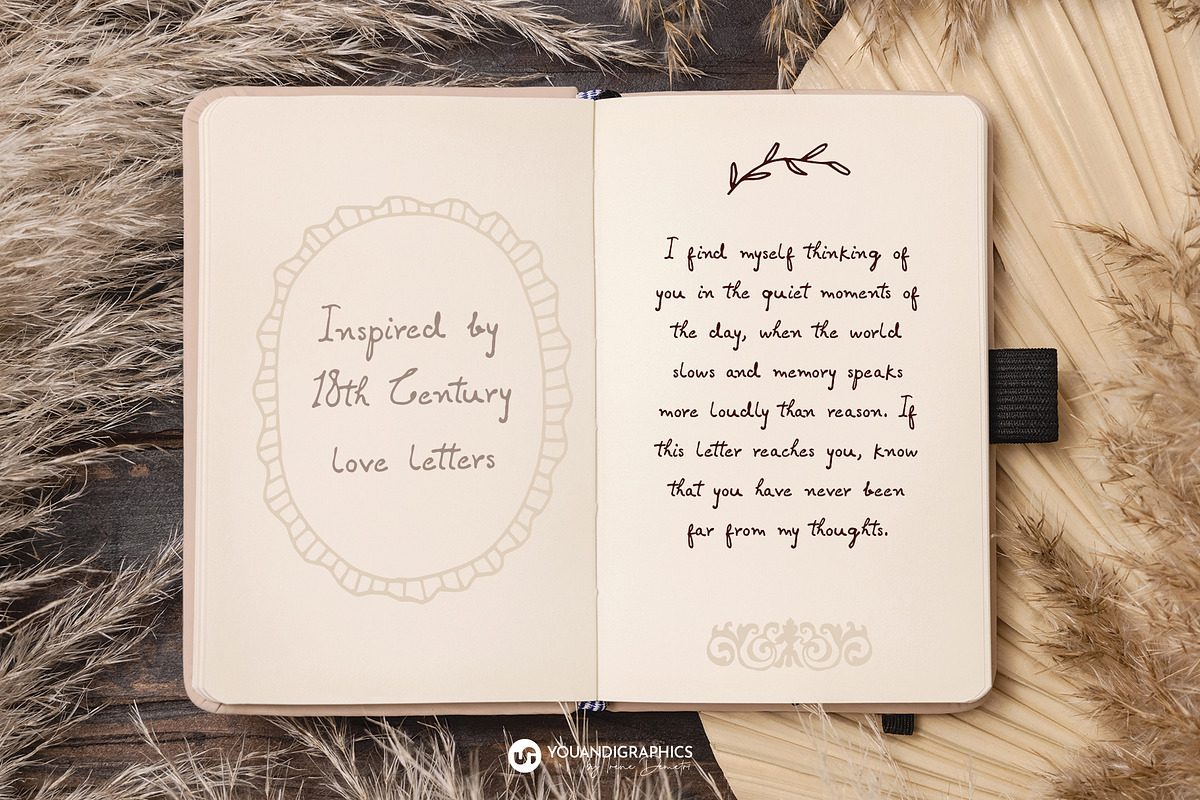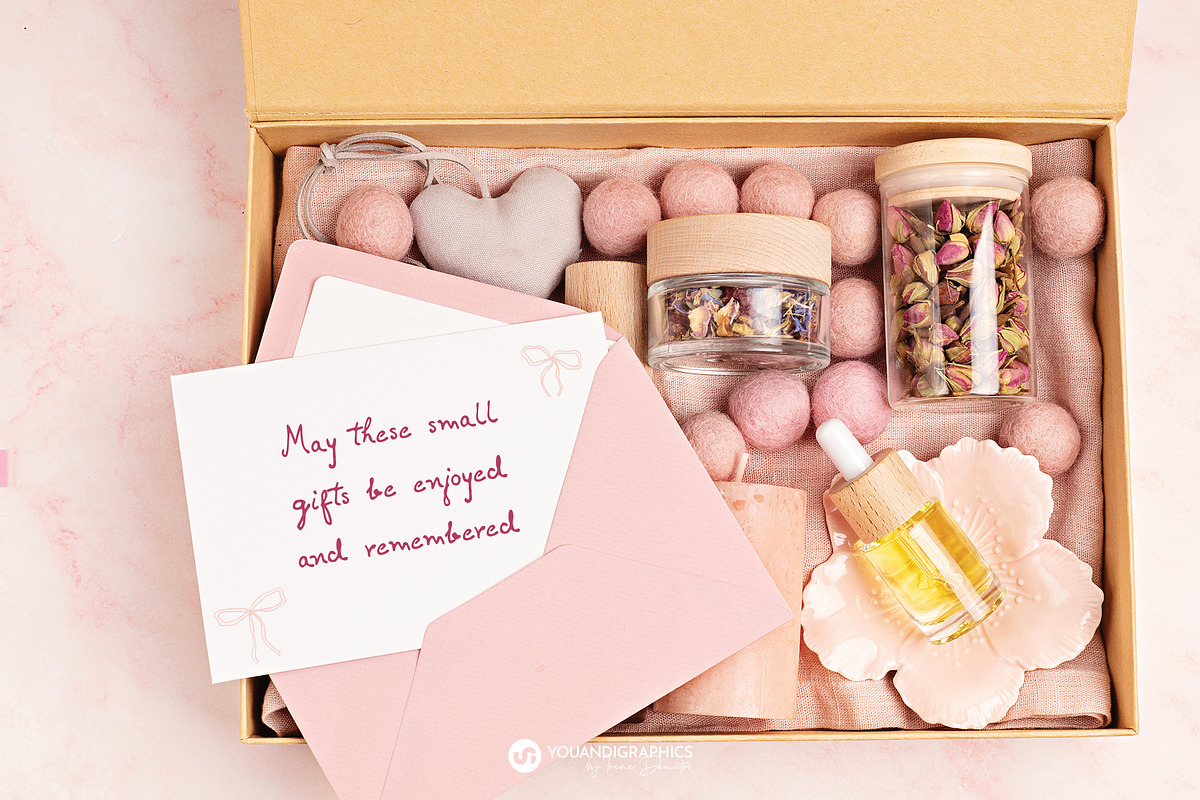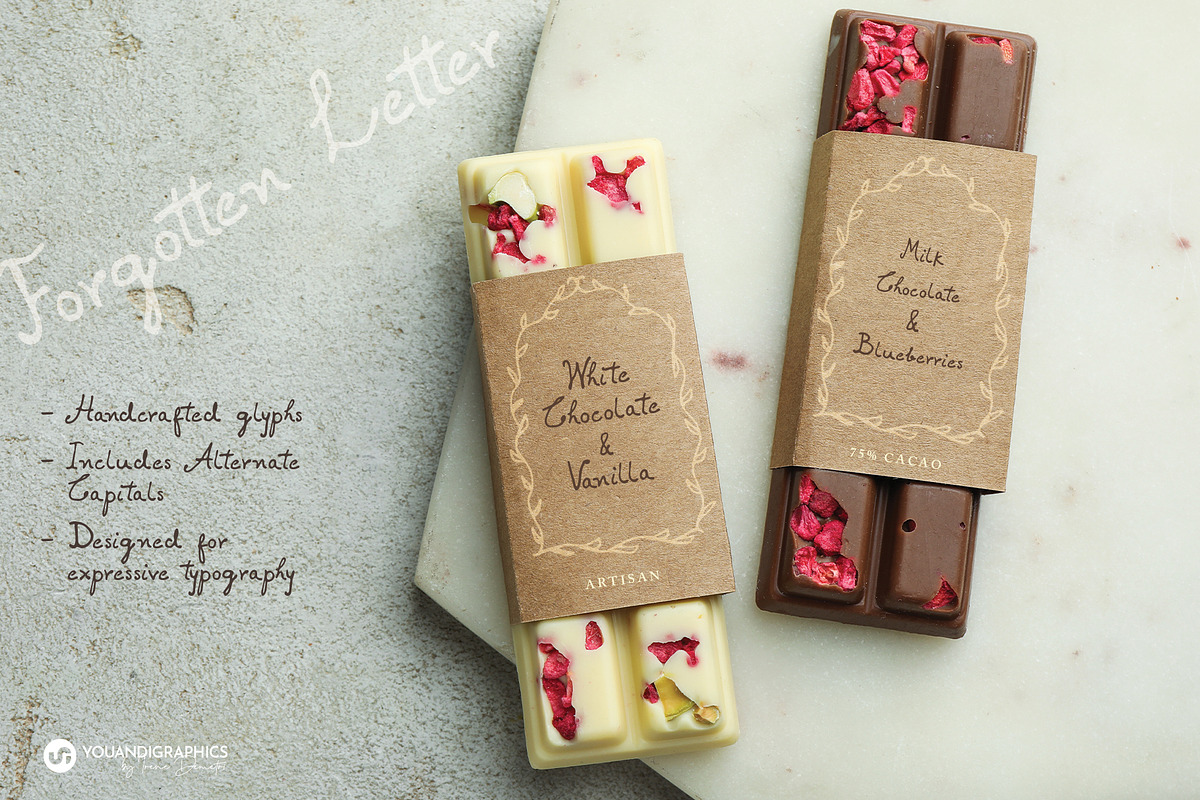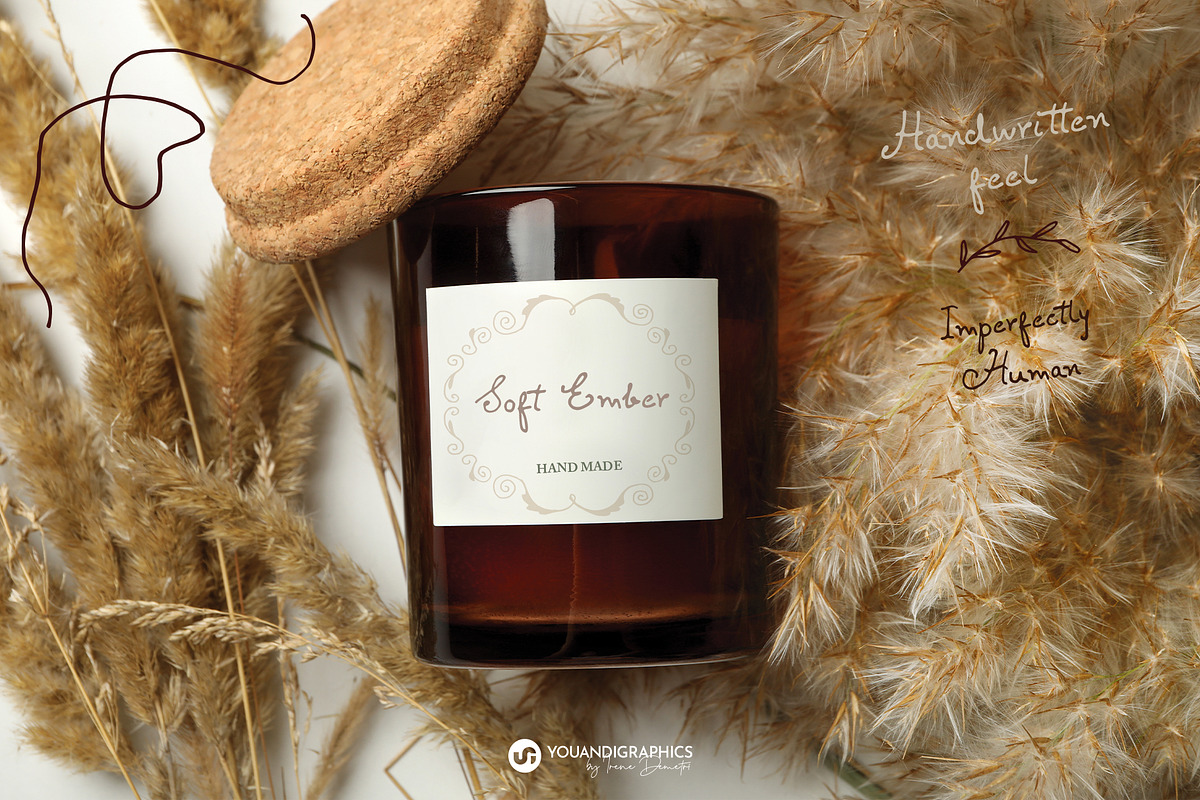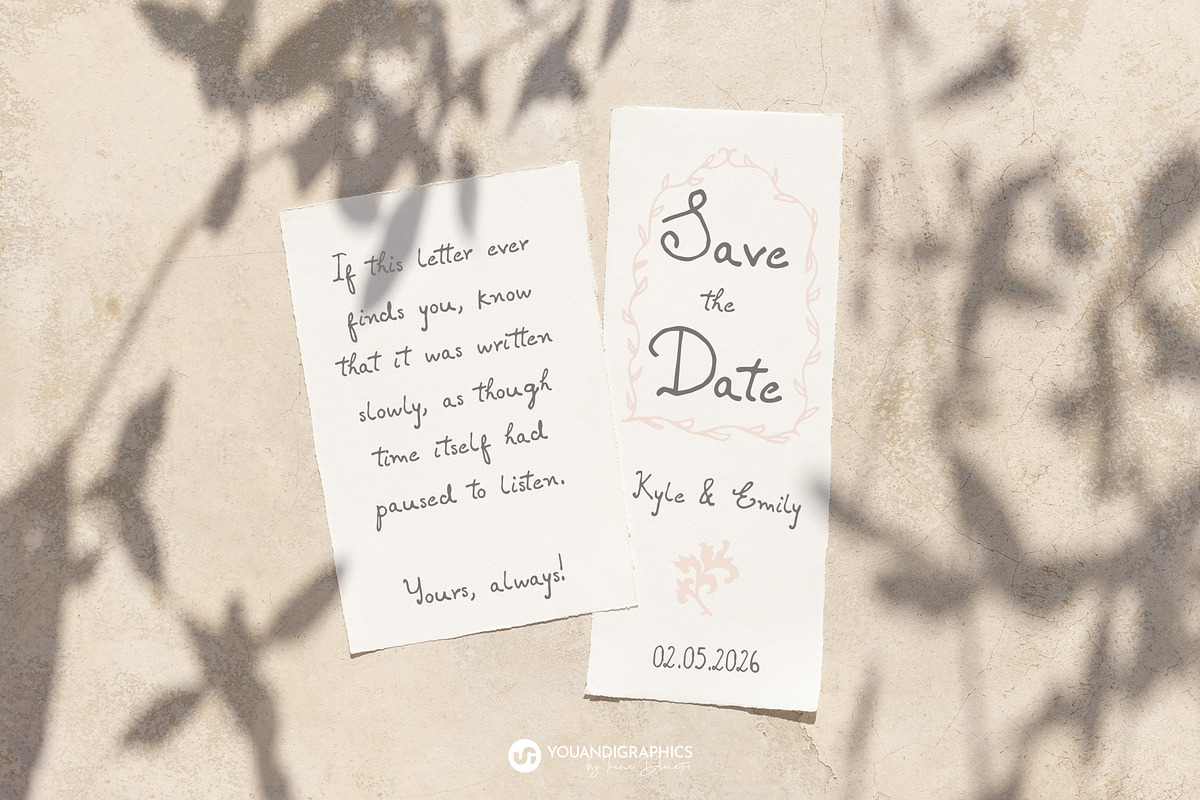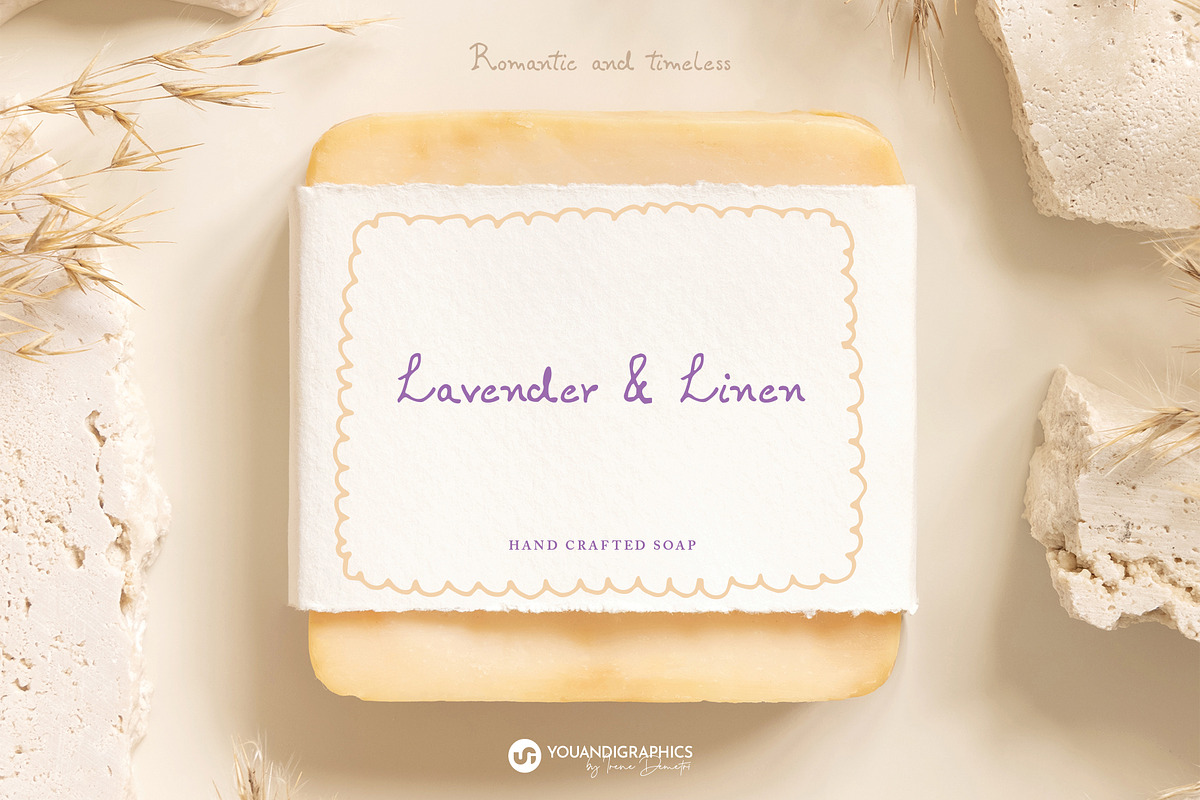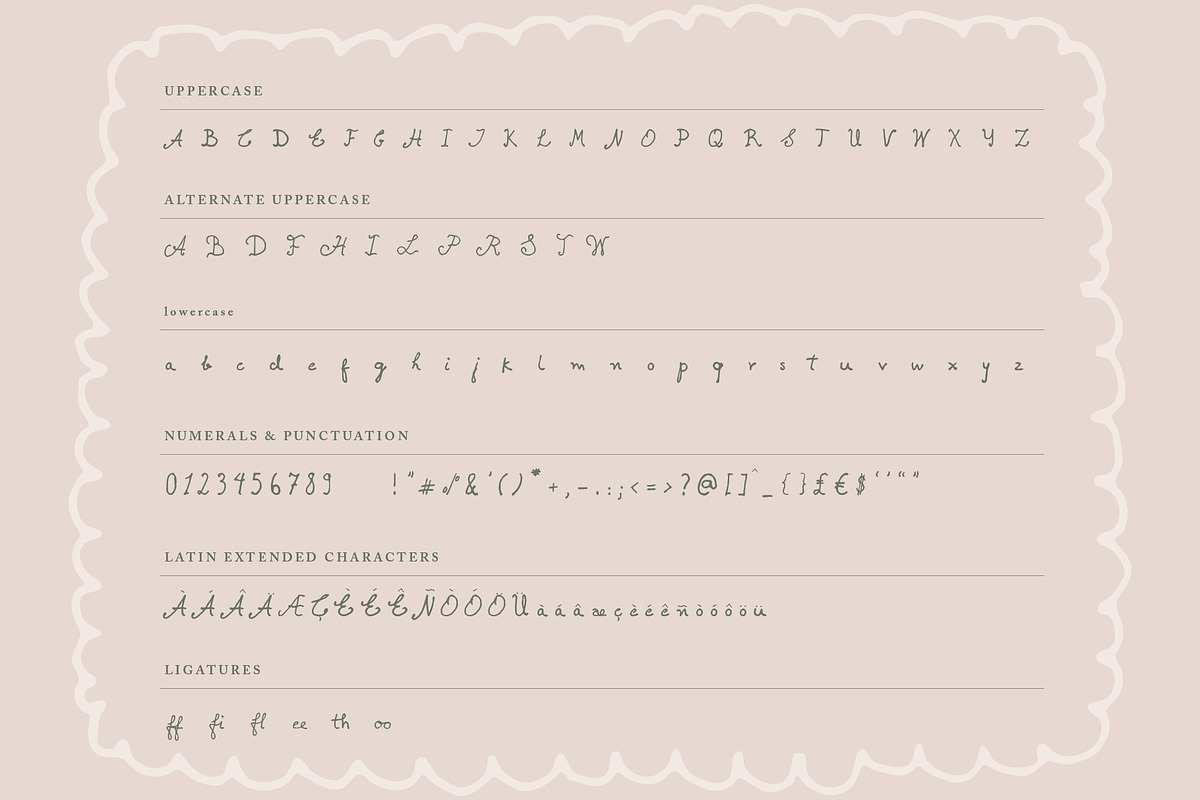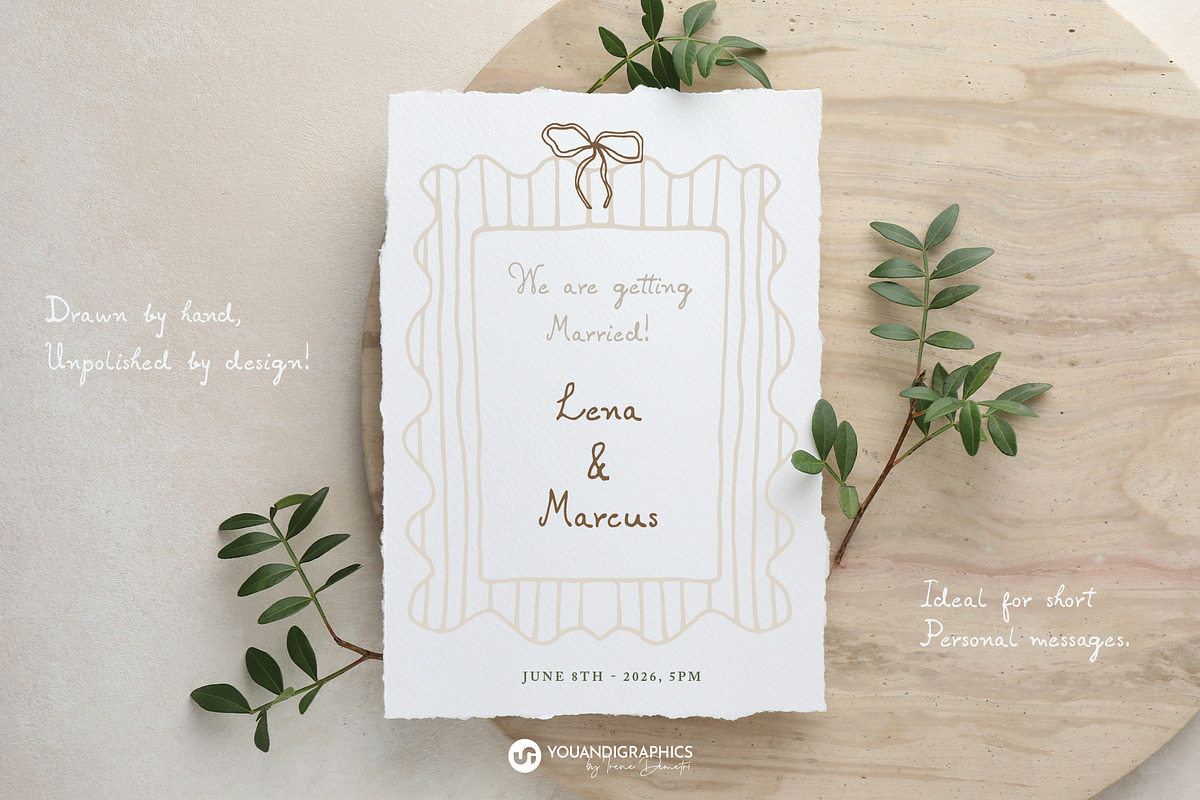
Forgotten Letter | Handdrawn Font
A Forgotten Letter is a romantic handwritten font inspired by the beauty of 19th-century correspondence, vintage journals, and love poems carefully written by hand.
Intentionally preserving the natural imperfections of pen on paper, this typeface embraces irregularity, character, and authenticity.
Uppercase & lowercase letters
Numerals and punctuation
Selected accented characters
Some Alternate uppercase characters
Bonus Illustrations Included
This font package also includes a collection of hand-drawn vector illustrations designed to complement the font's romantic and vintage aesthetic. Please refer to the preview images to see the included artwork.
Wedding stationery
Packaging design
Artisan and handmade brands
Book covers
Editorial design
Greeting cards
Quotes and lettering projects
Vintage-inspired branding
A Forgotten Letter is intentionally imperfect. The slight inconsistencies, organic shapes, and handwritten rhythm are a deliberate part of the design and contribute to its authentic character.